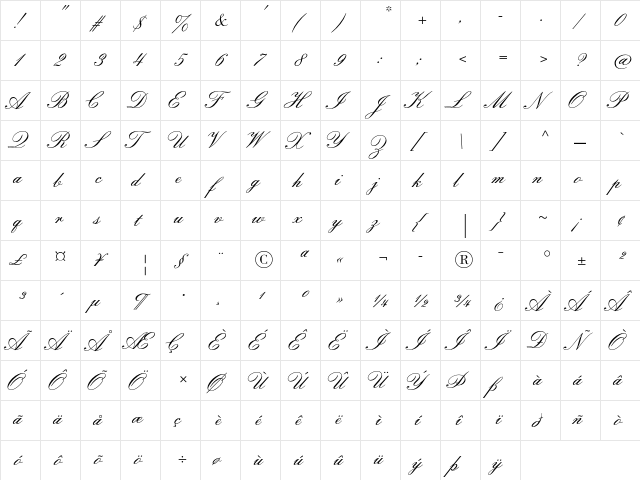
Florentine ScriptII Std Regular
Florentine ScriptII Std brings a calligraphic fluidity to the page — its connecting strokes and expressive curves give it an unmistakably human quality.
Font Pairing: Combine Florentine ScriptII Std with a simple geometric sans for maximum contrast — the tension between flowing curves and clean structure is a classic typographic pairing.
Pro Tip: Pair Florentine ScriptII Std with a clean sans-serif for supporting text. The contrast between fluid script and geometric structure creates an elegant typographic hierarchy.